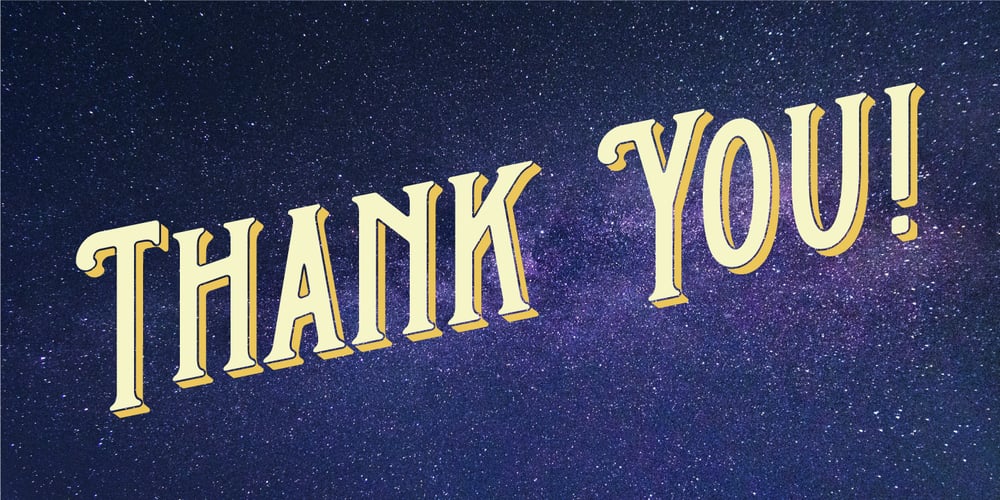
Outer Space
Outer Space font
Outer Space Font Family was designed by Oleg Voznyy and published by Vozzy. Outer Space contains 4 styles and family package options. Introducing a vintage look label font named “Outer Space”. You can see all available characters on the posters. This font have 4 styles (including layered shadow effect style). Outer Space will do well on any retro design like poster, t-shirt, label, logo etc.